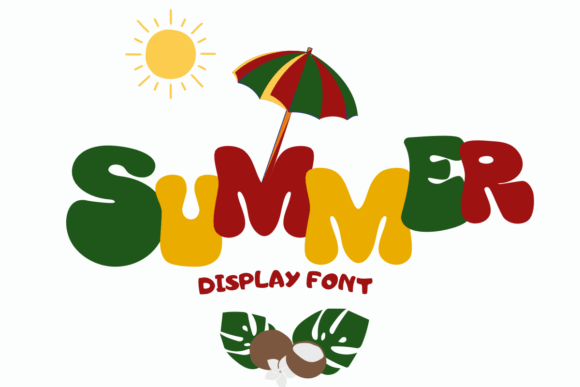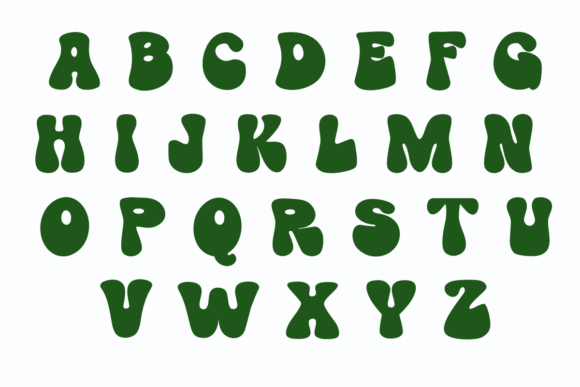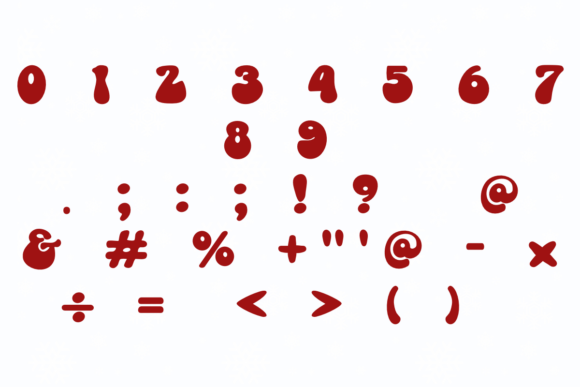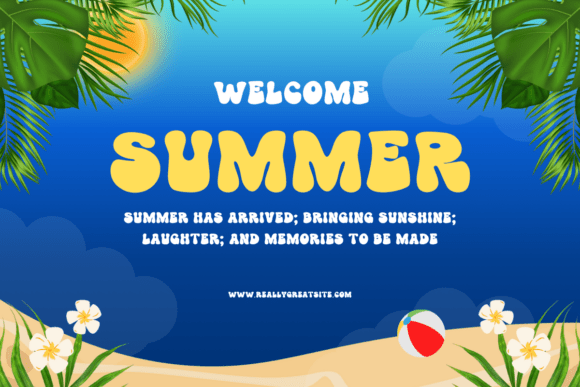
Summer Font
About the Summer Font
Welcome to the world of Summer Font, a typeface that will inspire your next great project. Bring tropical energy to your designs with Summer Display Font, a bold and fun font inspired by sunny days and beachside vibes. With chunky, cheerful letterforms in vibrant island colors, this font is perfect for summer promotions, children’s apparel, vacation posters, or playful branding.